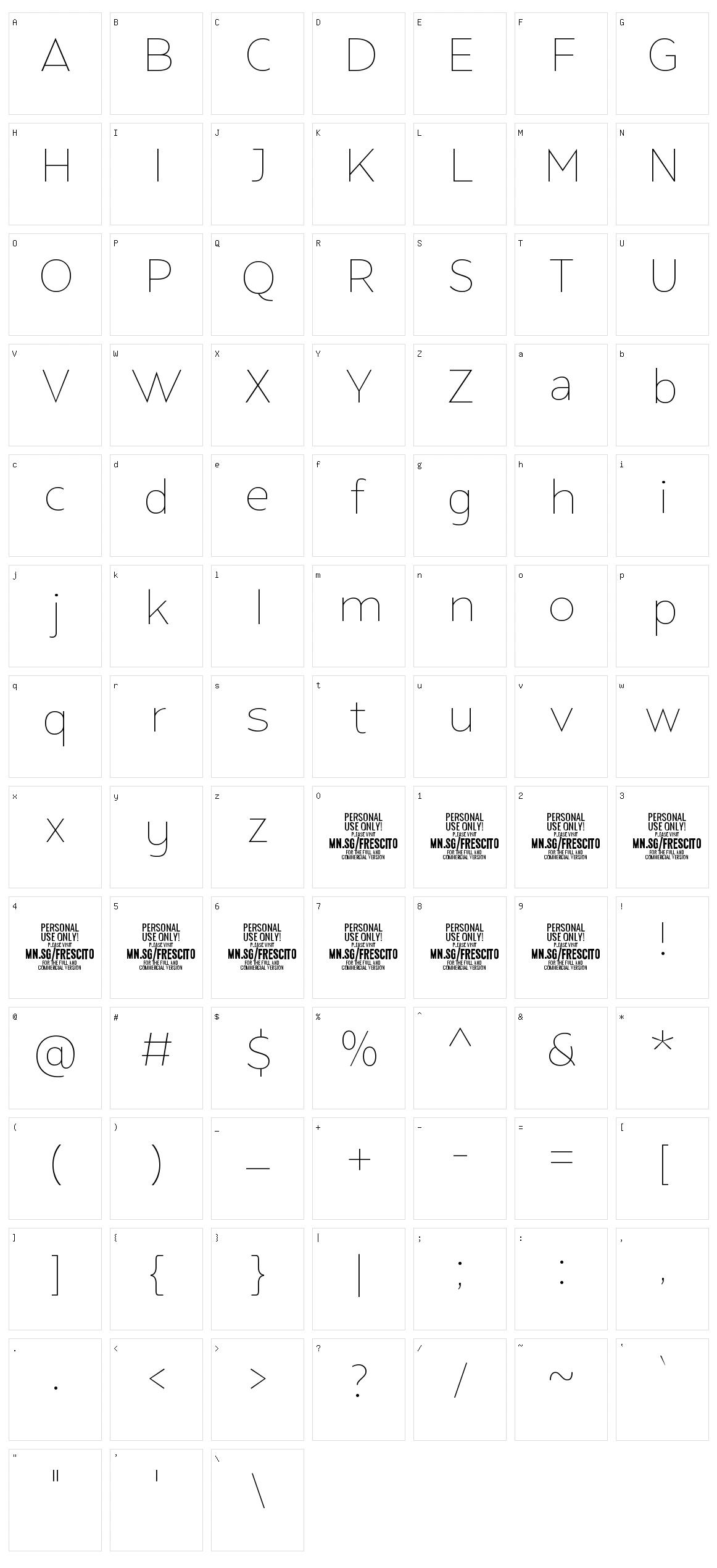
Frescito is a modern sans-serif typeface that embodies a fresh, cool, and street-smart aesthetic. Designed to be both balanced and versatile, its clear and legible monoline style is designed for branding and advertising in editorial and digital design.
The Frescito font family comes in the five classic weights: Thin, Light, Medium, Bold, and Black, along with a Variable font for ultimate flexibility and customization, as well as Italics.
The font is built with advanced OpenType functionality and has a guaranteed top-notch quality, containing stylistic and contextual alternates, ligatures, and more features; all to give you full control and customizability. It has extensive lingual support, covering all Latin-based languages, from Northern Europe to South Africa, from America to South-East Asia. It contains all characters and symbols you'll ever need, including all punctuation and numbers.
This gives you not only the predefined styles, but instead more than a thousand ways to customize the type to the exact look your project requires.